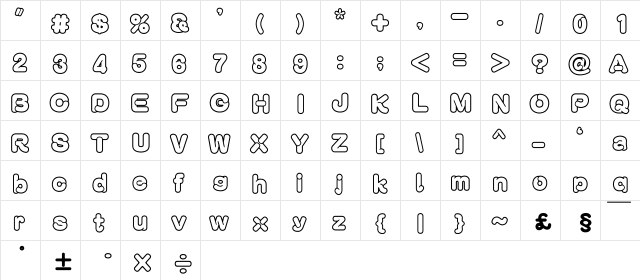
HanWangKanDaYan Regular Font Preview
HanWangKanDaYan Regular
Design Context for HanWangKanDaYan Typeface
HanWangKanDaYan offers clean, dependable letterforms without strong stylistic allegiance, making it a practical choice for designers who need flexibility.